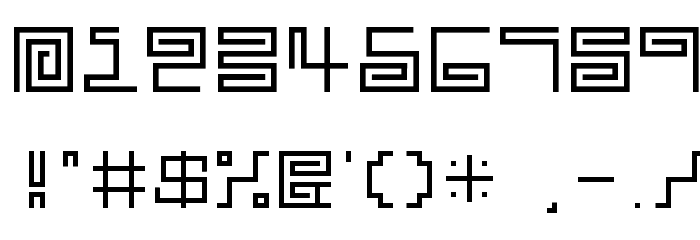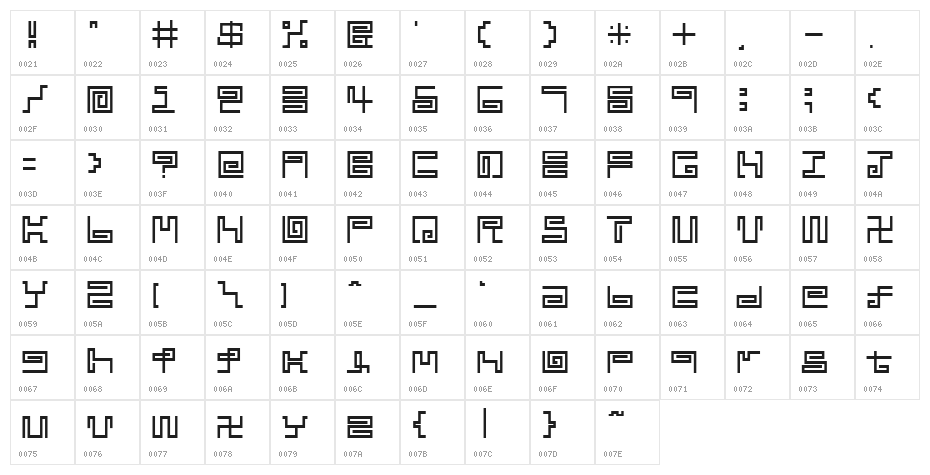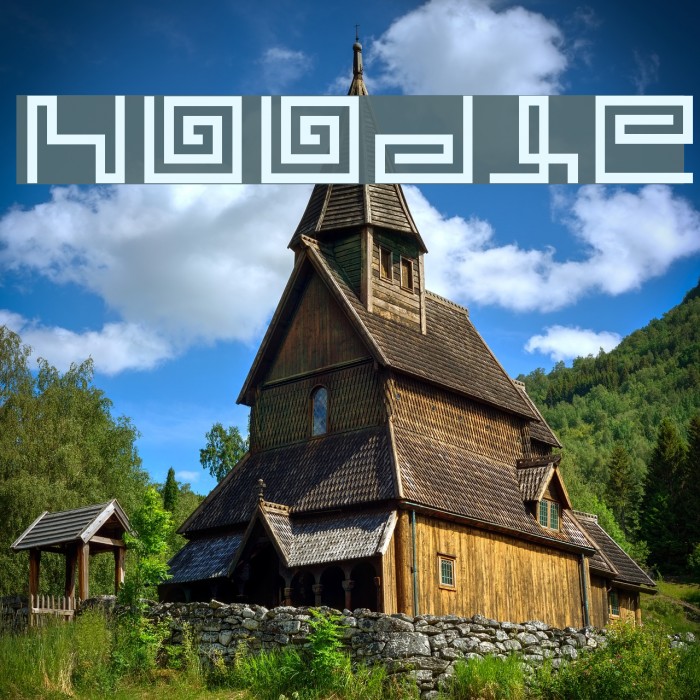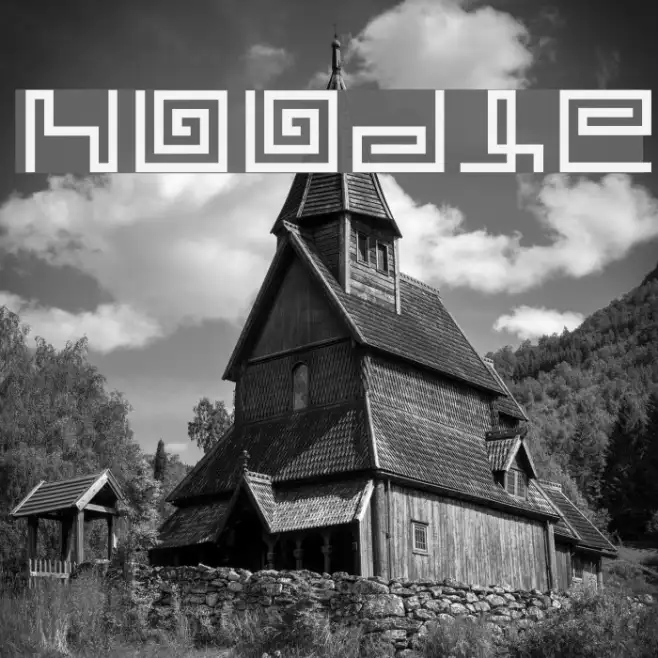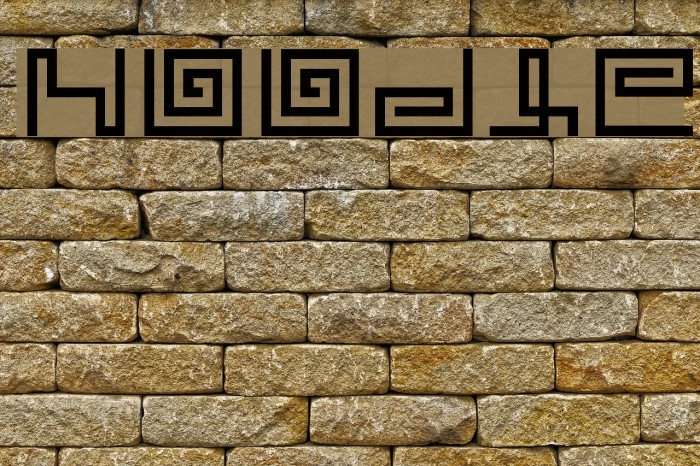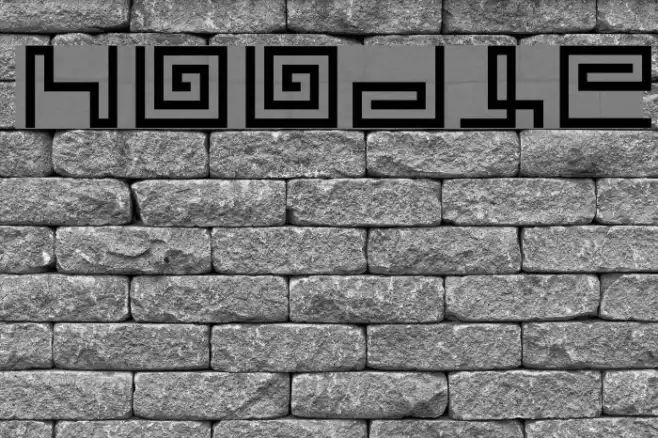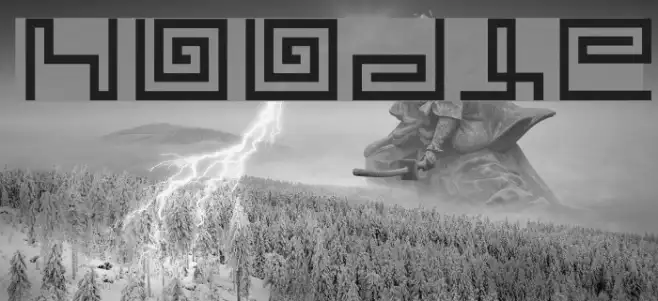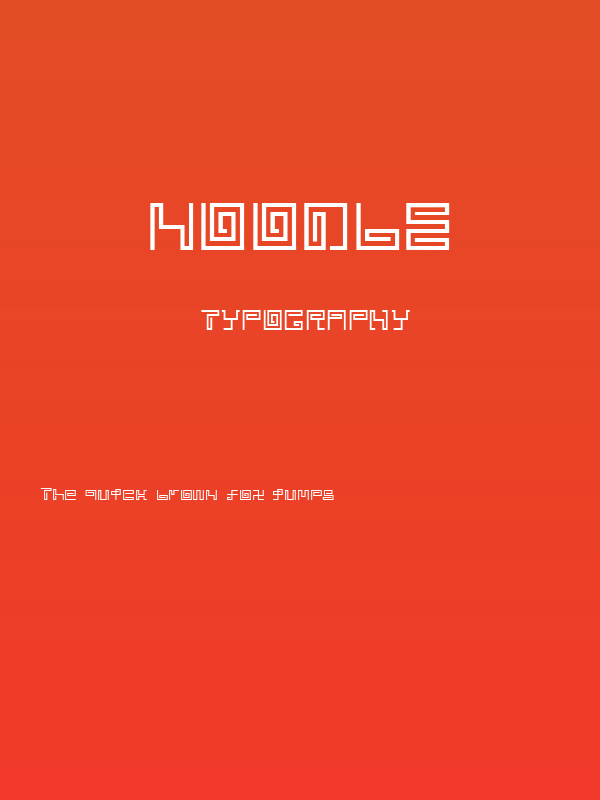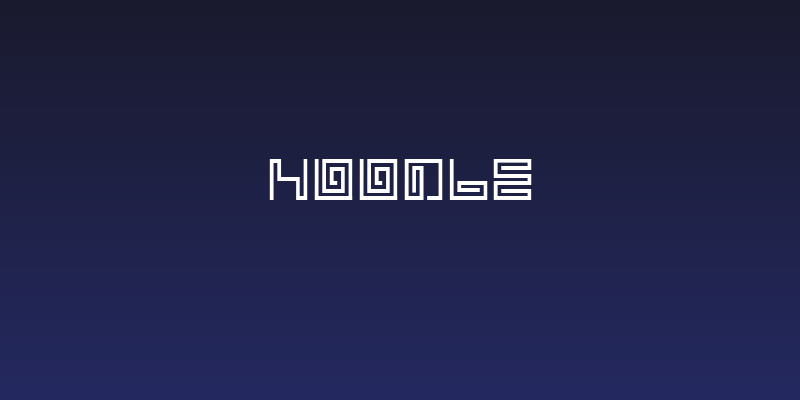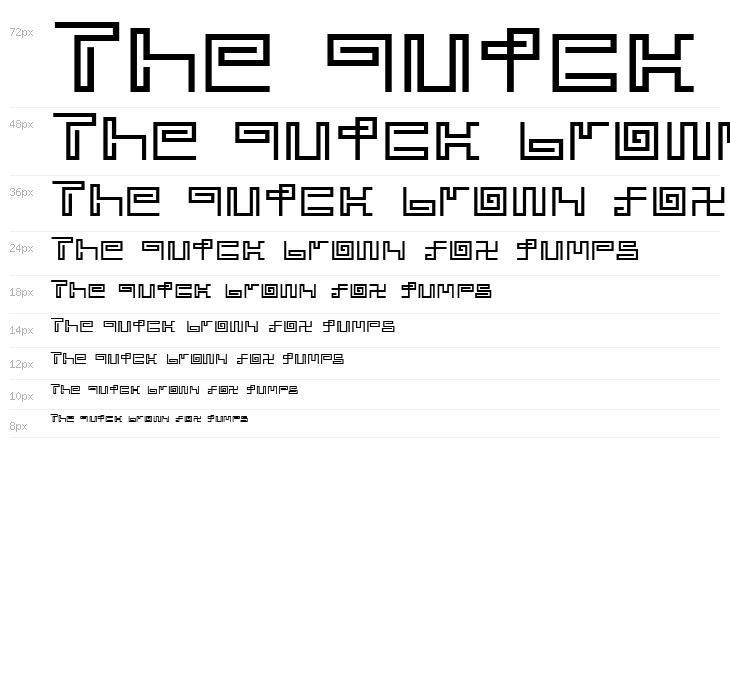
noodle Font
noodle Description
This font features a unique, geometric design with a maze-like appearance. Each character is constructed with bold, straight lines and right angles, creating a futuristic and digital aesthetic. The uppercase and lowercase letters maintain a consistent style, with intricate patterns that resemble circuit board paths. Numbers and special characters follow the same design principles, ensuring uniformity across the font. The overall look is modern and tech-inspired, making it suitable for projects that require a distinctive and eye-catching typeface.